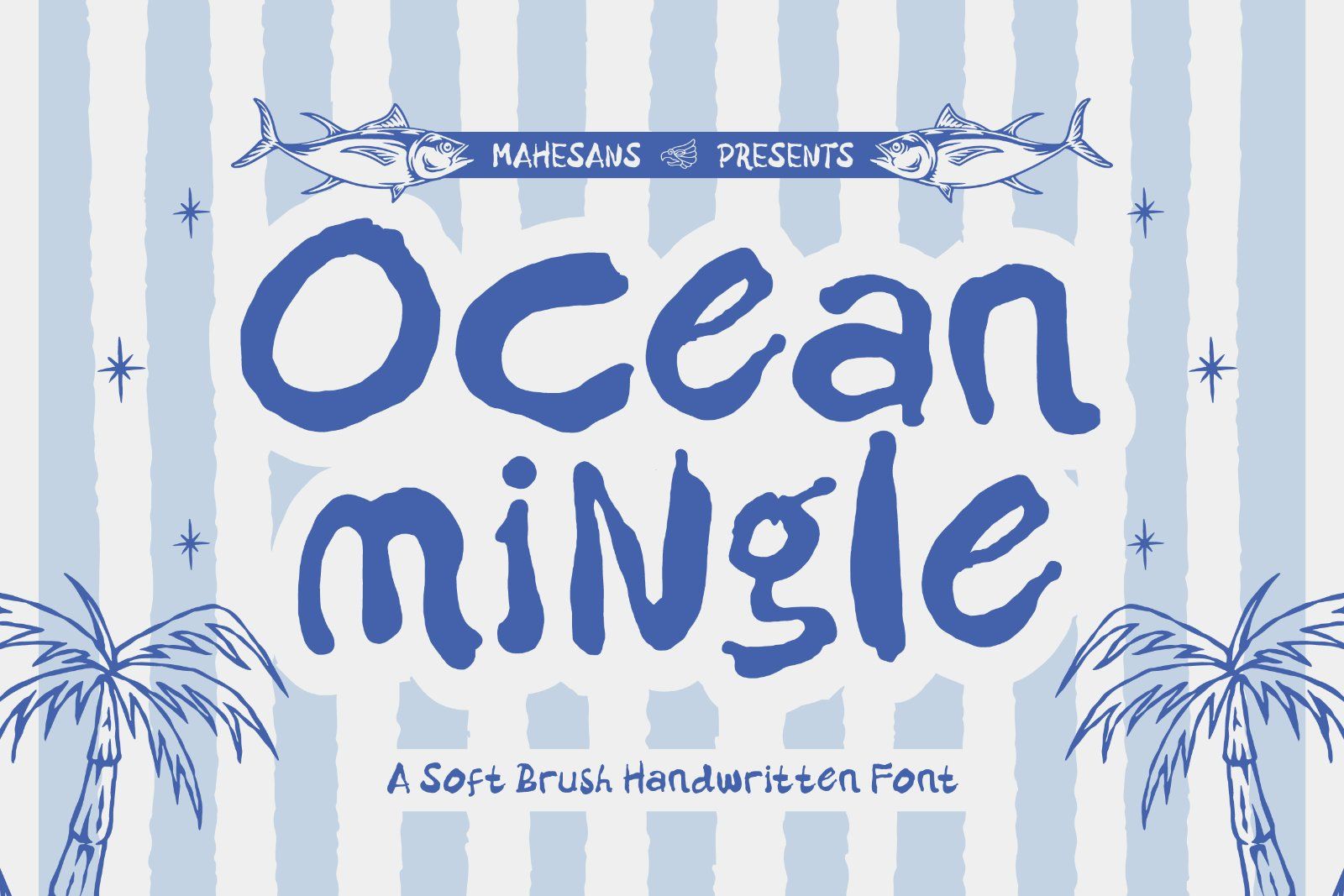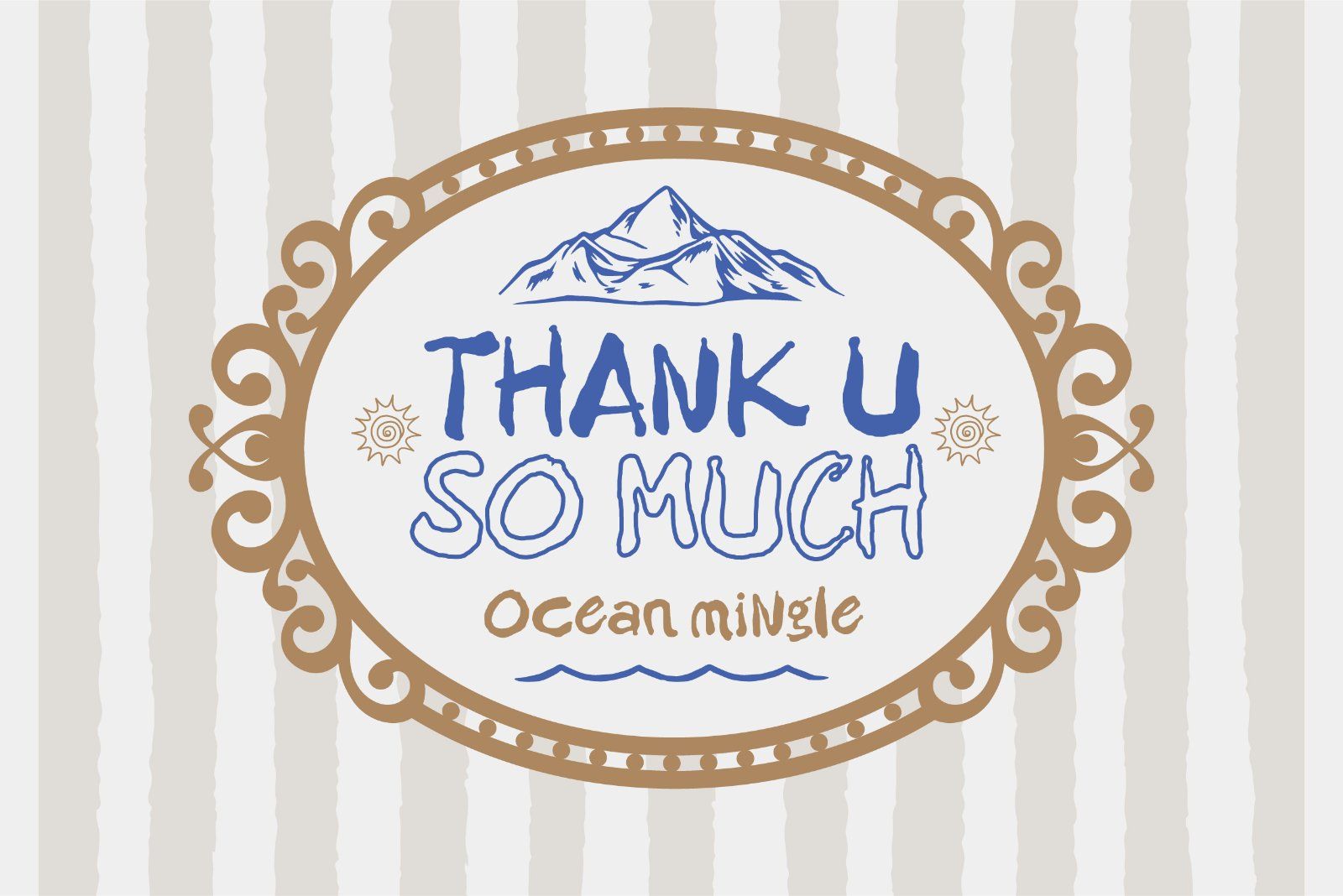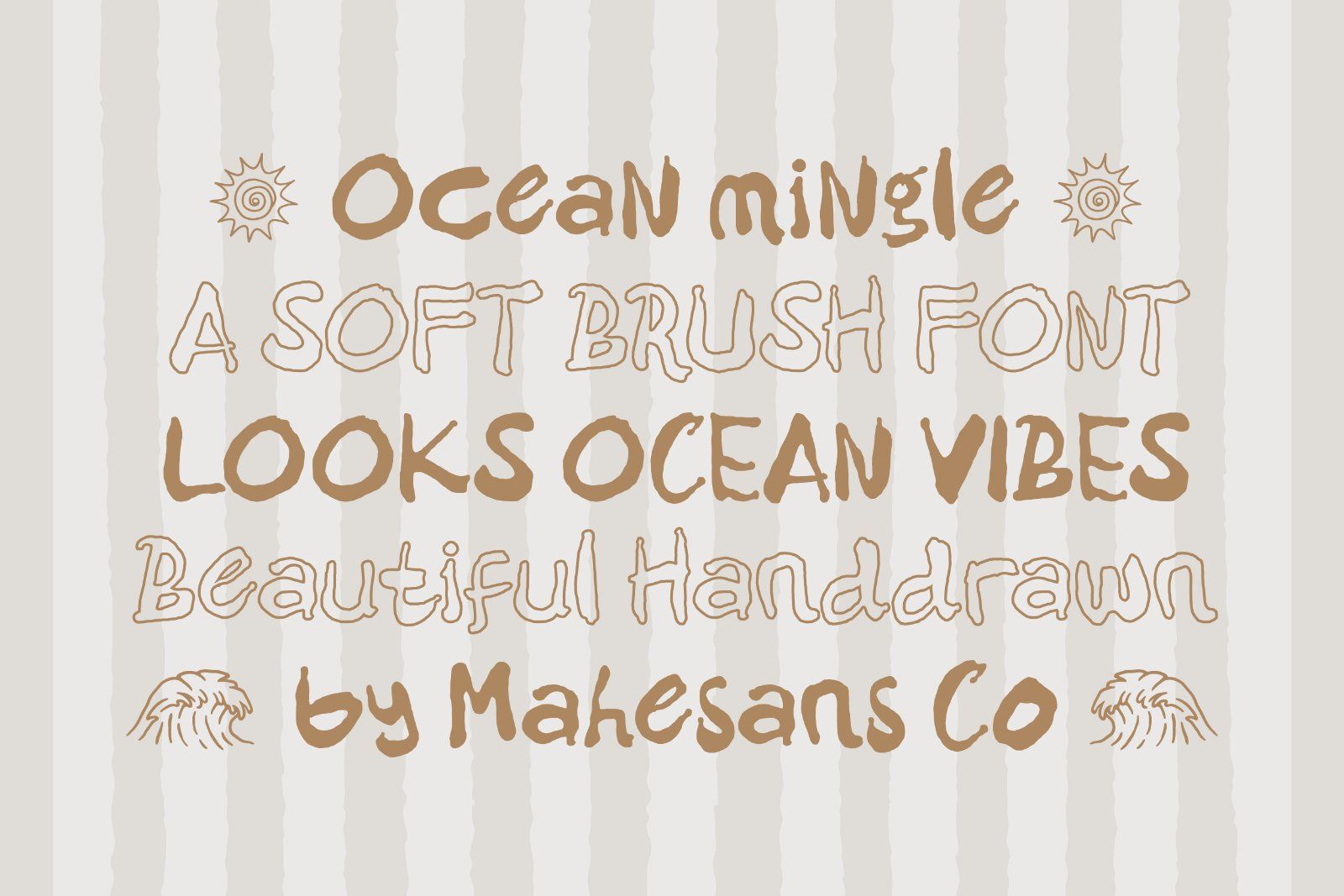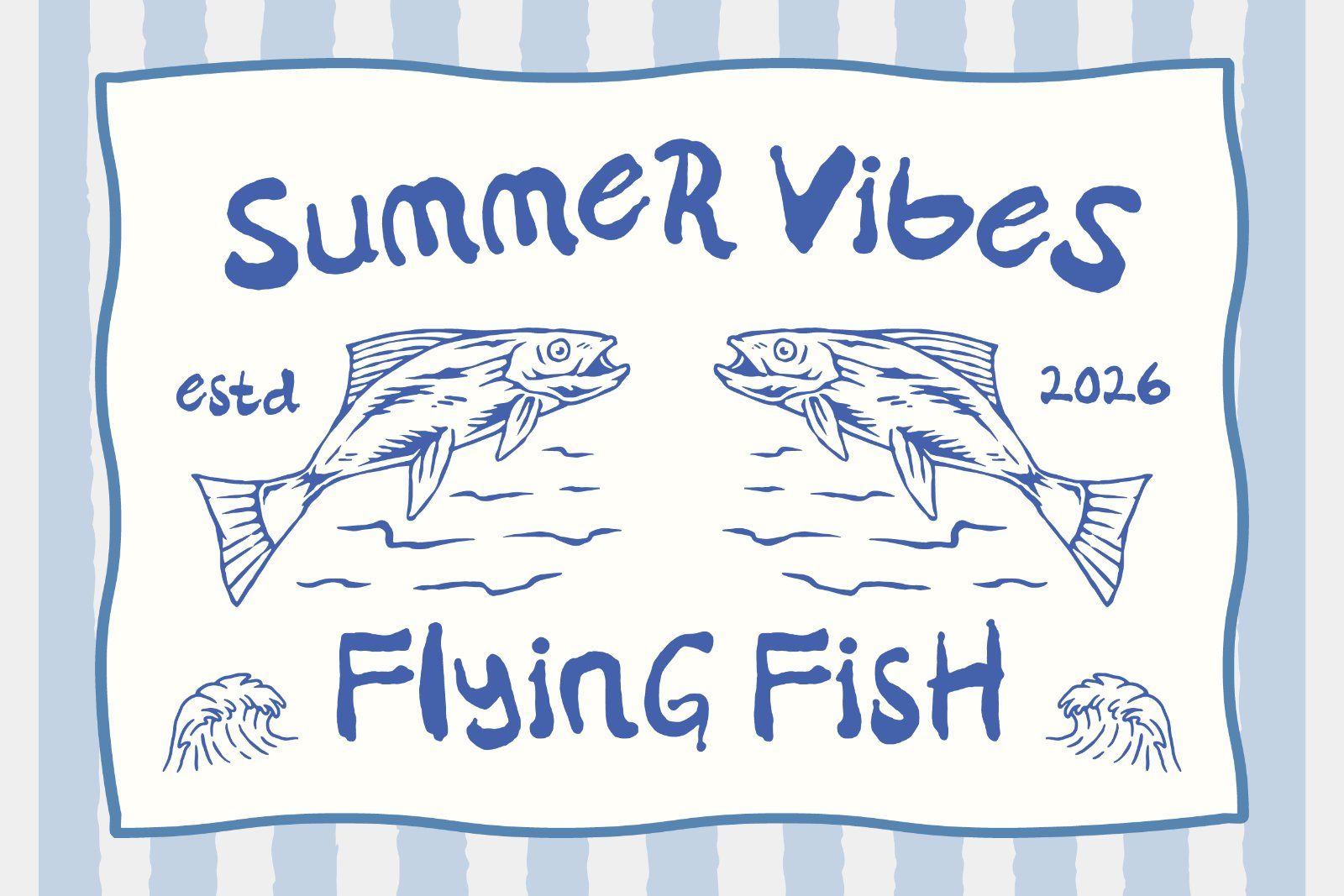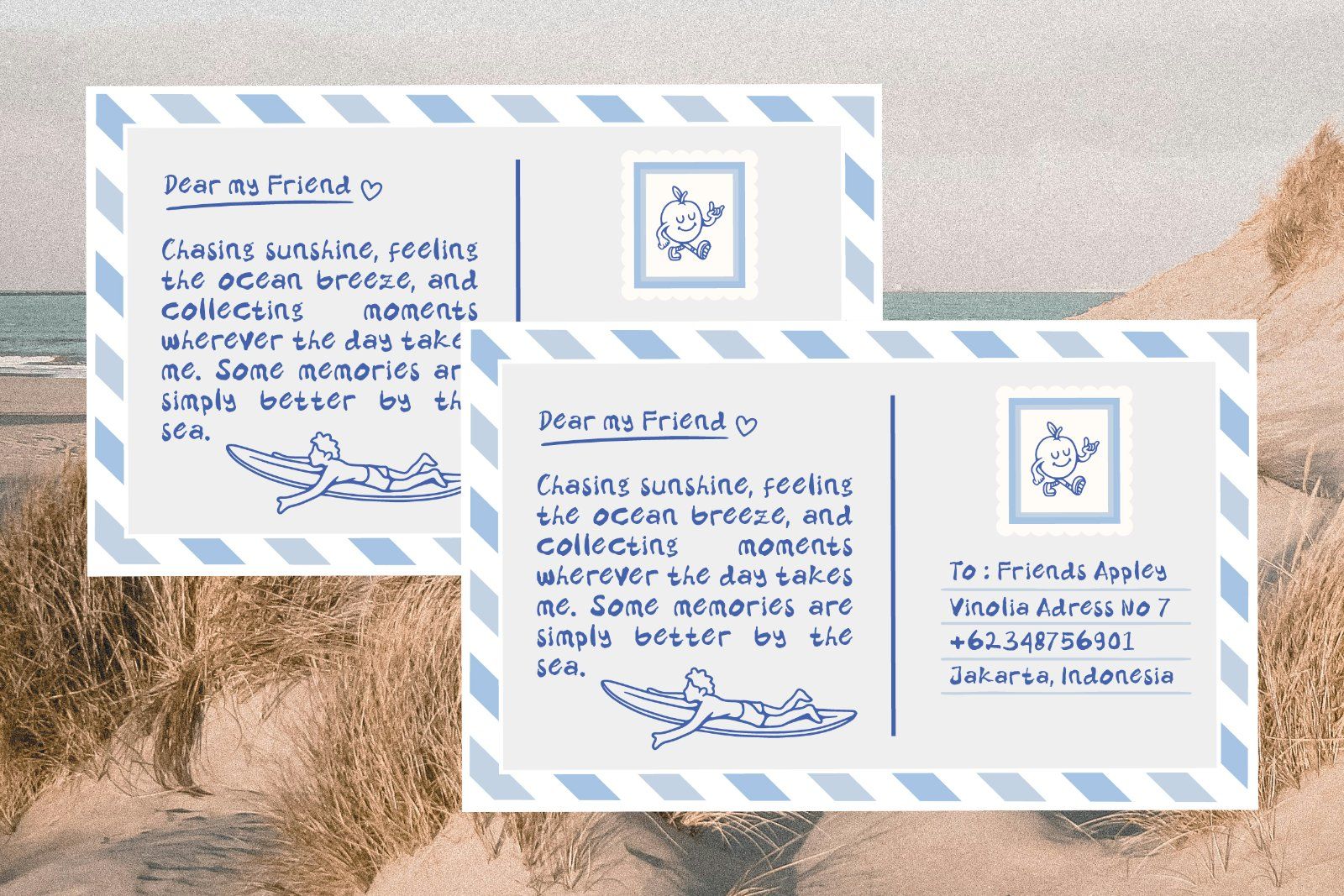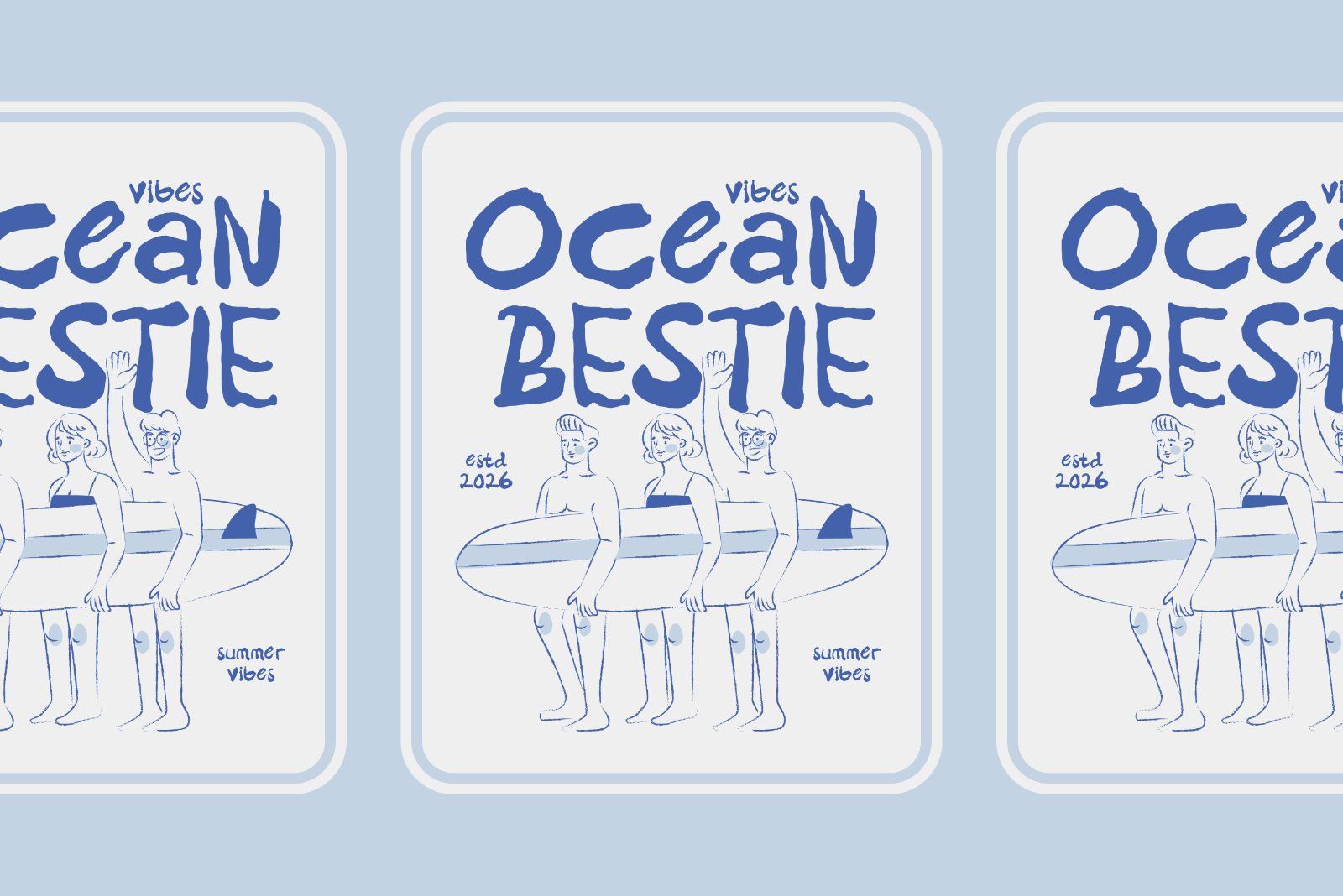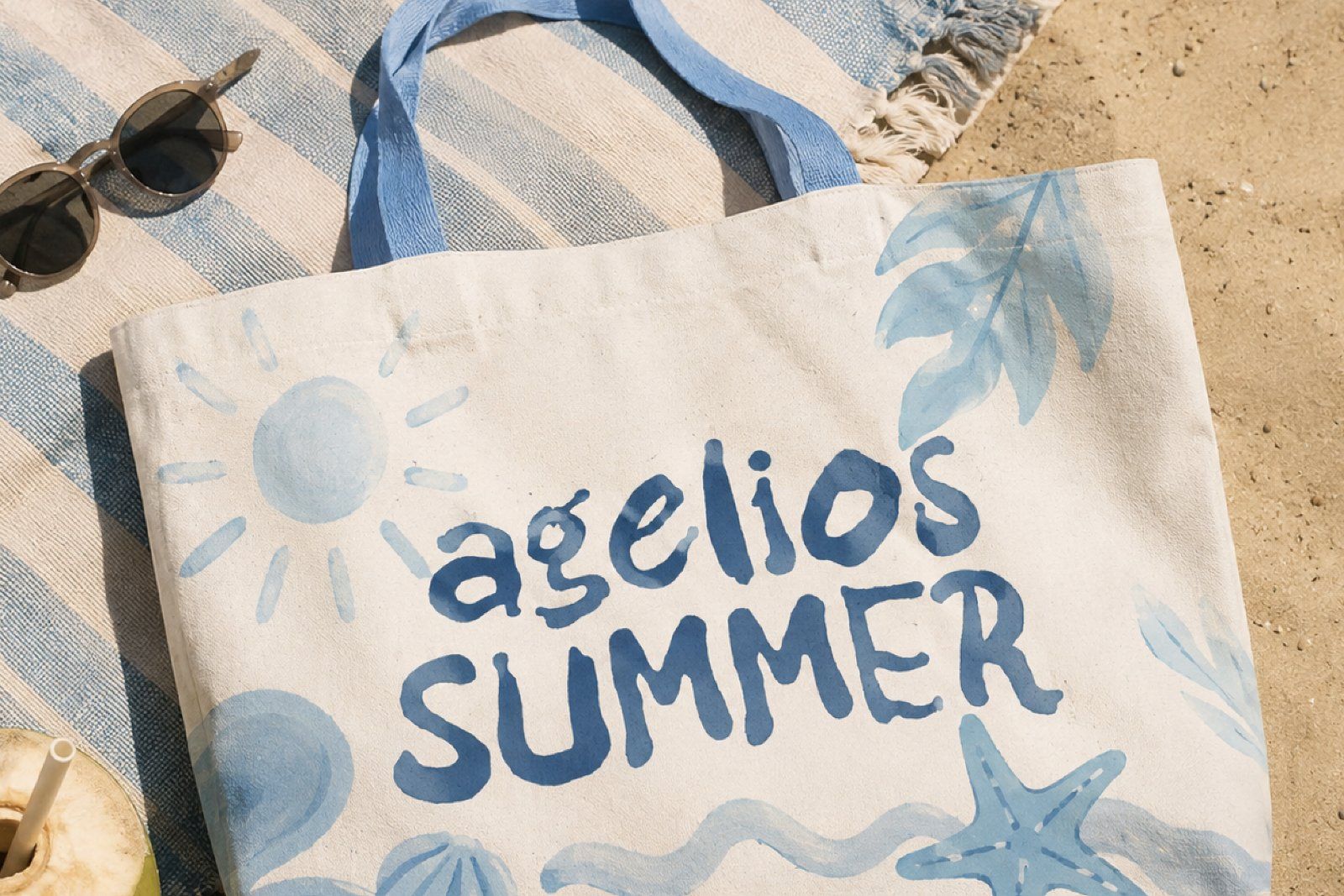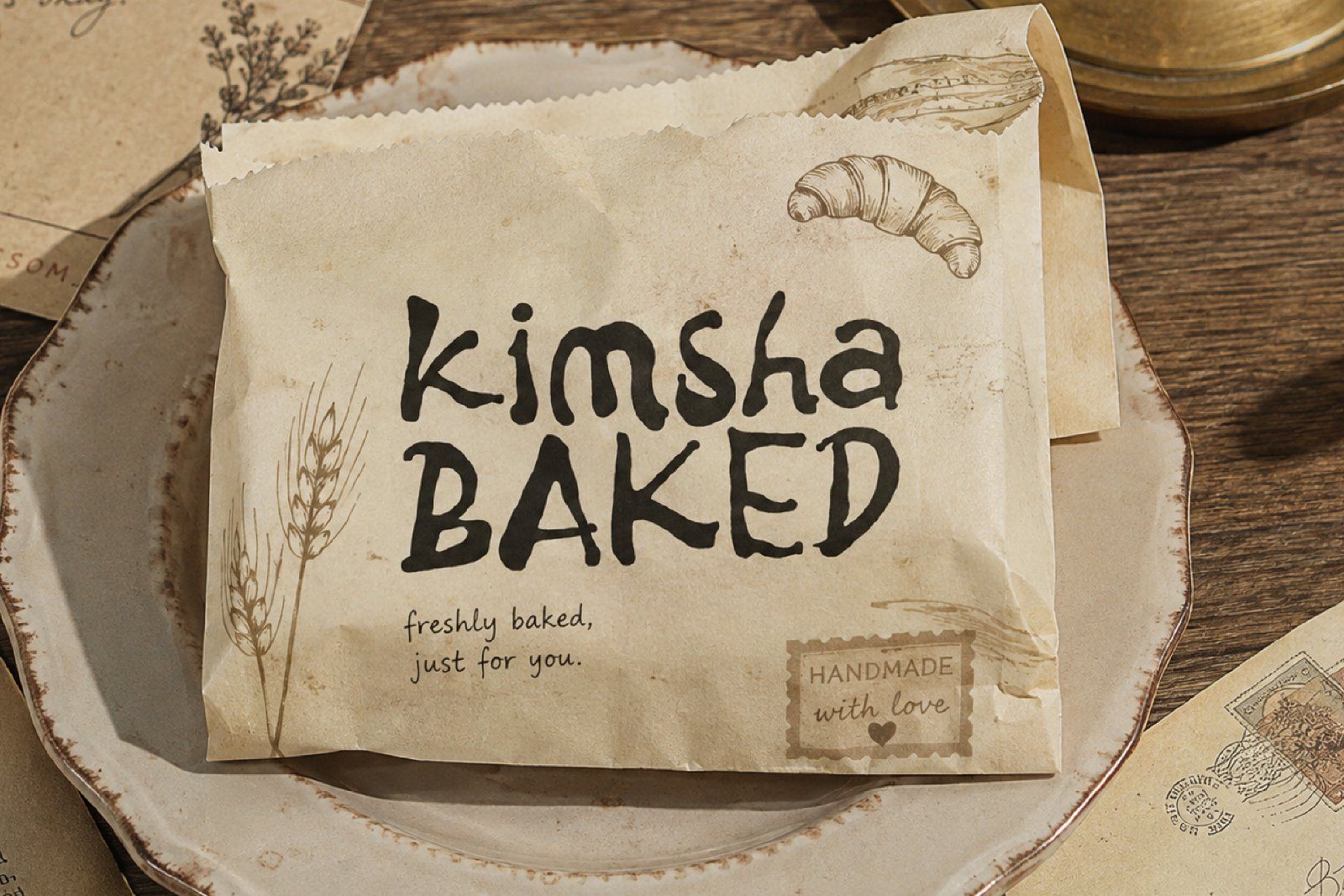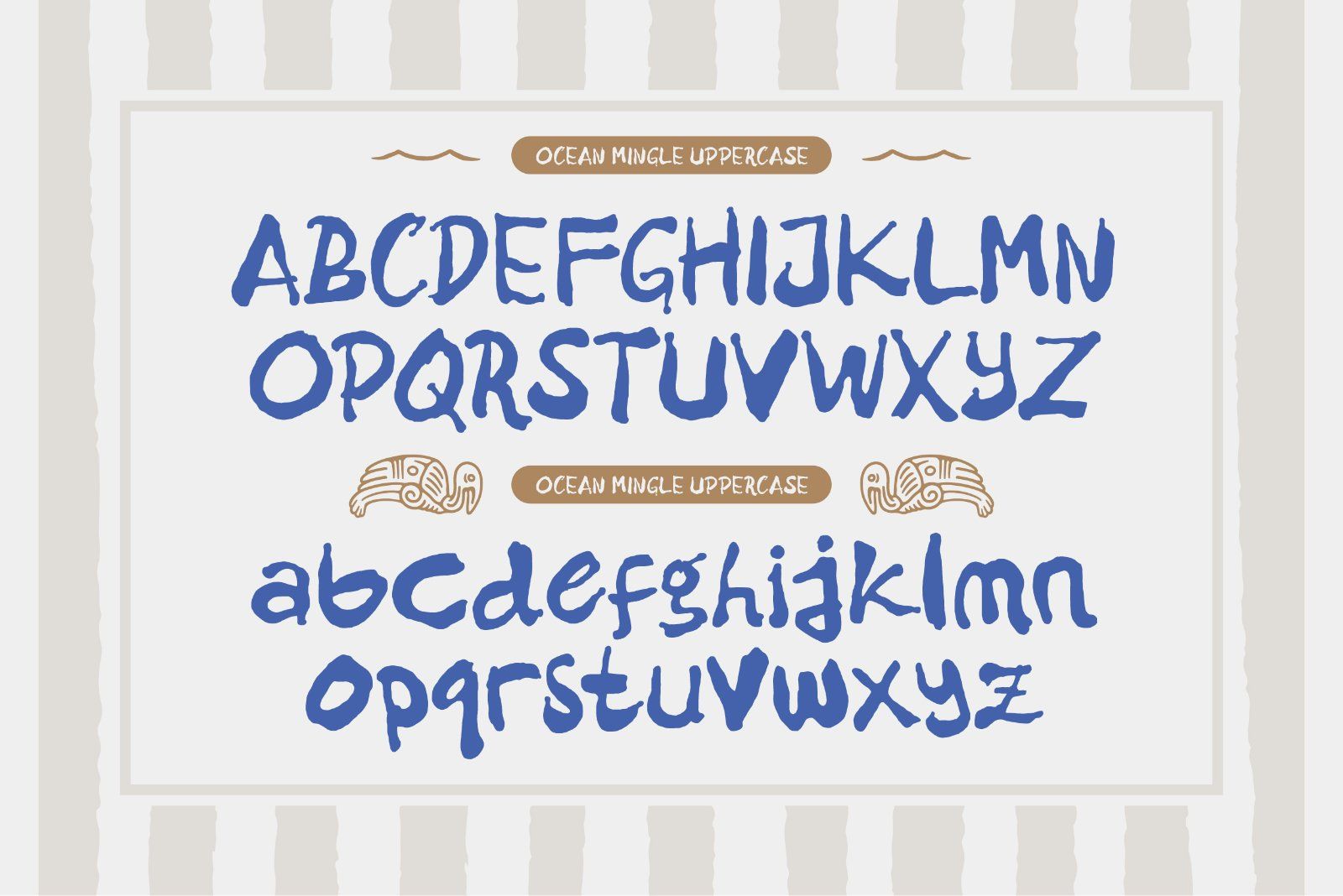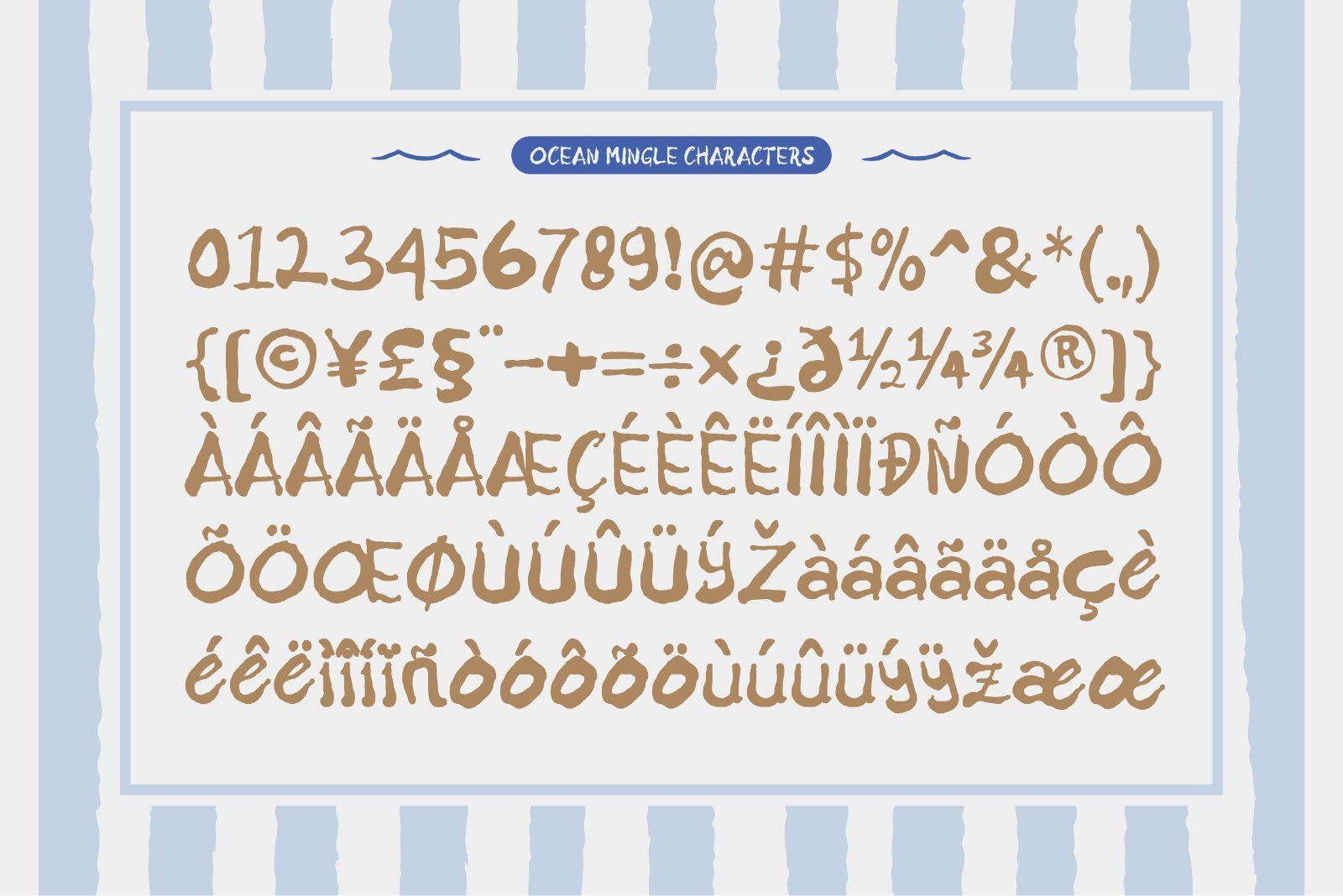
Ocean Mingle is a soft brush handwritten font inspired by sunny beaches, salty air, rolling waves, and carefree summer days. Designed with natural and imperfect brush strokes, this typeface delivers an authentic handmade feel that instantly creates a relaxed and friendly atmosphere.
Its organic letterforms make Ocean Mingle perfect for designs that need a casual, fun, and beach-inspired personality. Whether you're creating branding materials, social media graphics, packaging, or vacation-themed projects, this font will add a fresh coastal touch to your work.
Ocean Mingle works beautifully for:
• Beach and coastal branding
• Summer-themed designs
• Seafood and fishing logos
• Surf and ocean merchandise
• Cafe and restaurant branding
• T-shirt designs
• Packaging design
• Posters and flyers
• Social media content
• Product labels
• Children's projects
• Handmade and craft designs
• Multilanguage